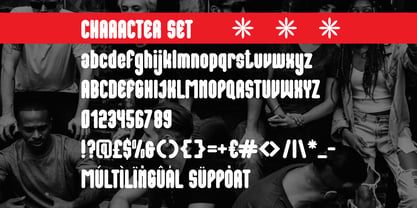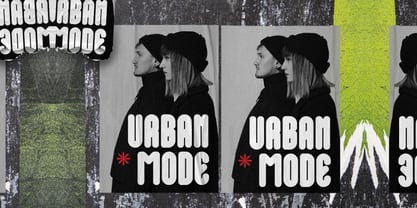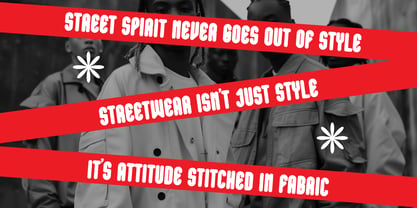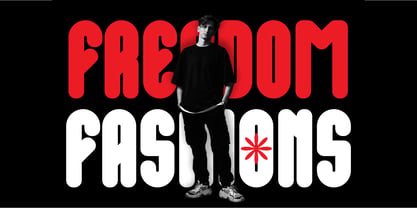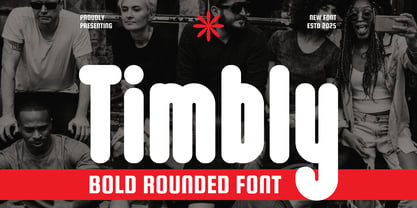
Timbly
by Putracetol
The Timbly Font Family was designed by Putra Novembria Candra Kusuma and published by Putracetol. Timbly contains 1 styles. More about this family
Timbly Playful Rounded Display Font brings a perfect balance of boldness, softness, and modern attitude. The letterforms are thick and tall with smooth rounded edges, creating a striking yet friendly appearance. Its geometric base structure delivers a clean and consistent look, while the generous curves add warmth and approachability. Each glyph carries strong visual weight, making this font highly readable even at large scales. Timbly Playful Rounded Display Font embodies the modern urban vibe — stylish, youthful, and effortlessly cool — ideal for designs that want to express confidence with character. This font is designed for versatility across various creative projects such as logos, streetwear branding, fashion campaigns, posters, headlines, or digital advertisements. Its rounded bold style reflects positivity and creativity, giving any text a sense of modern energy and playful professionalism. The smooth transitions between strokes enhance harmony, making it suitable for both print and digital designs. Whether used for magazine covers, product packaging, or social media visuals, Timbly Playful Rounded Display Font ensures that every word stands out with modern charm and timeless appeal. It’s more than just a font — it’s a style statement for today’s visual creators.
Designers: Putra Novembria Candra Kusuma
Foundry: Putracetol